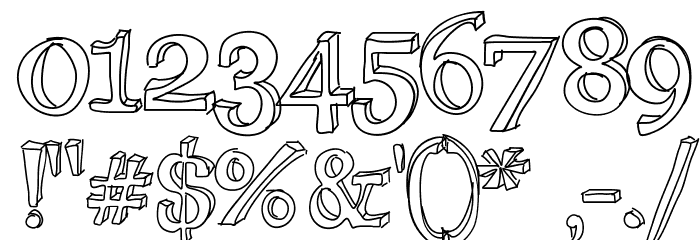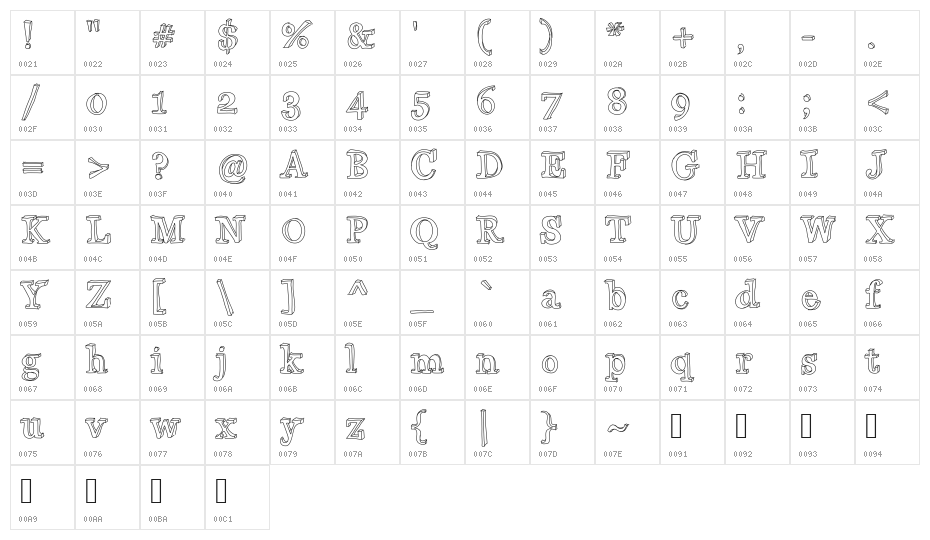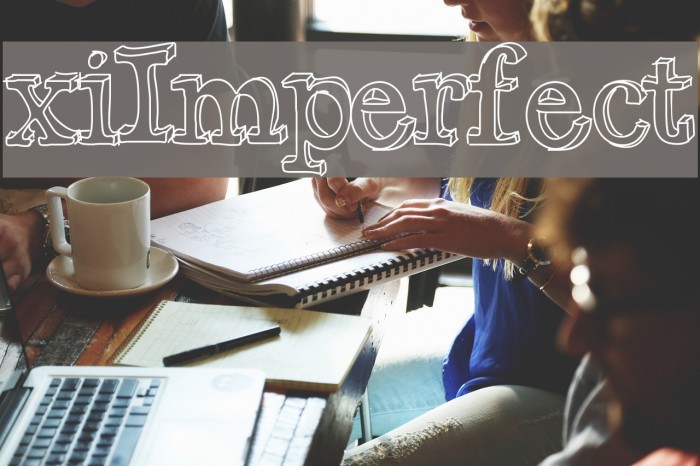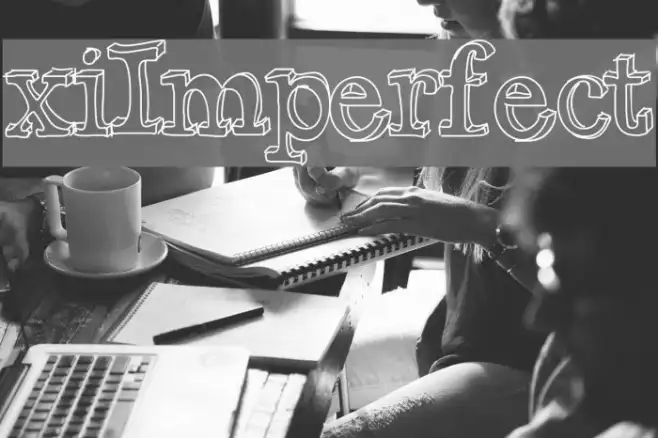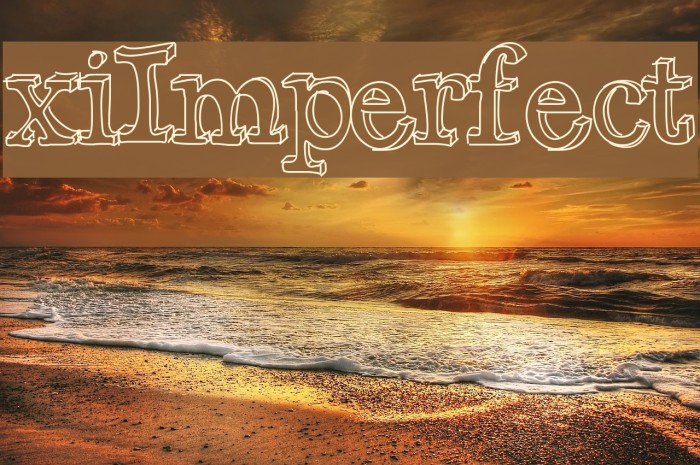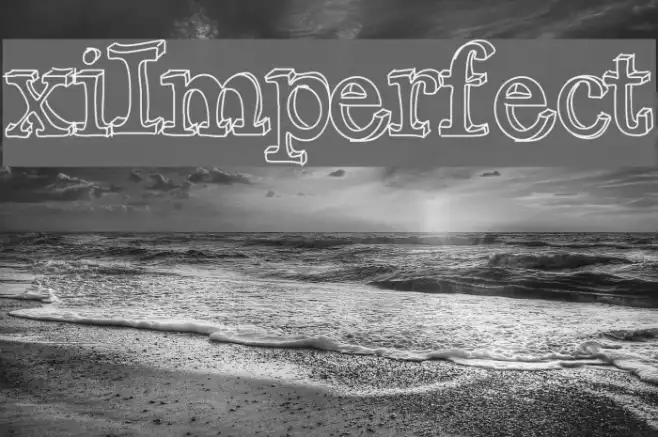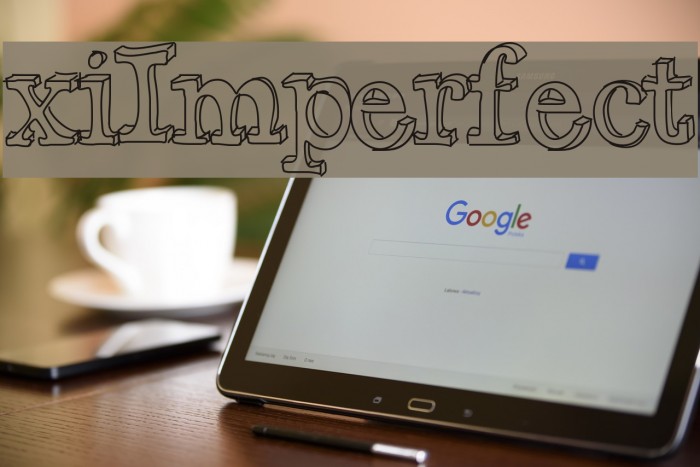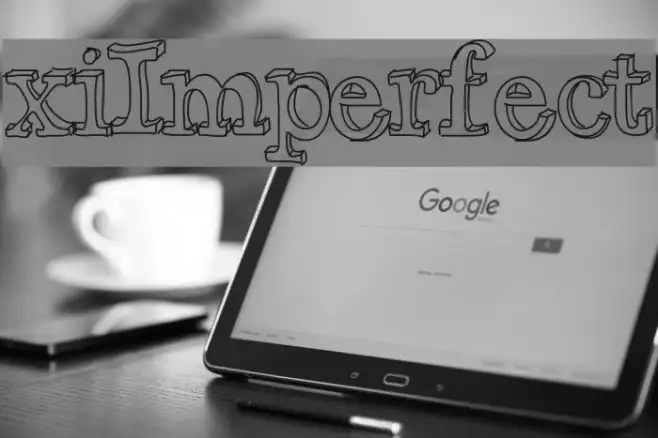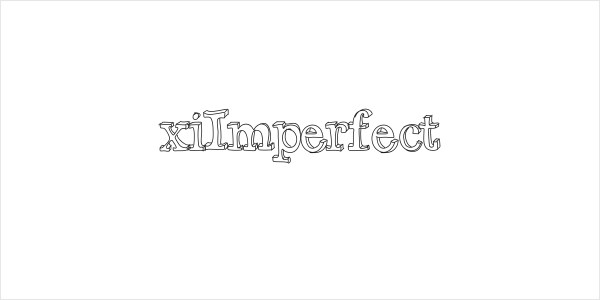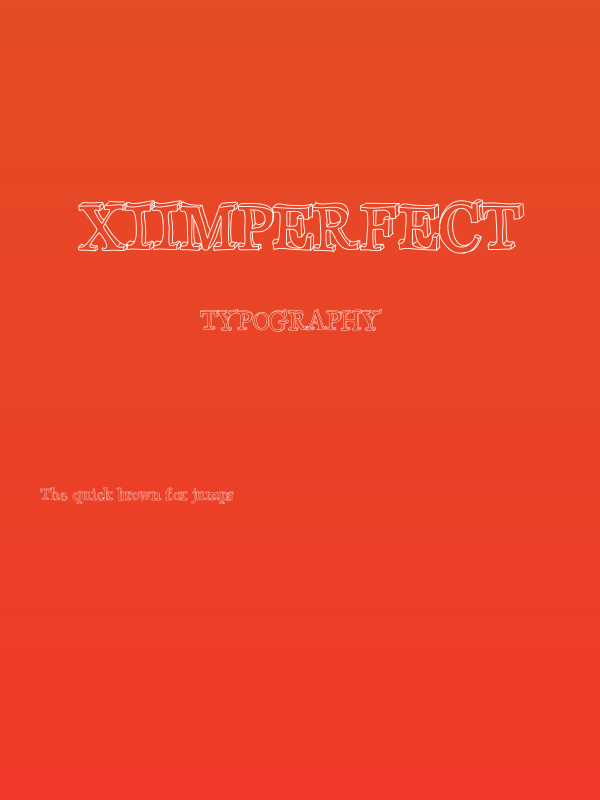
xiImperfect Font
xiImperfect Description
This font features a playful and artistic design with a hand-drawn appearance. The characters are outlined with a double line, giving them a three-dimensional effect. The strokes are uneven, adding a whimsical and imperfect charm. The uppercase letters are bold and prominent, while the lowercase letters maintain a consistent style with slightly rounded edges. Numbers and special characters follow the same artistic theme, making the font suitable for creative and informal projects. The overall look is unique and eye-catching, perfect for adding a touch of personality to any design.
| Proposed Projects | Ideal for children's books, creative posters, playful branding, and artistic invitations. |